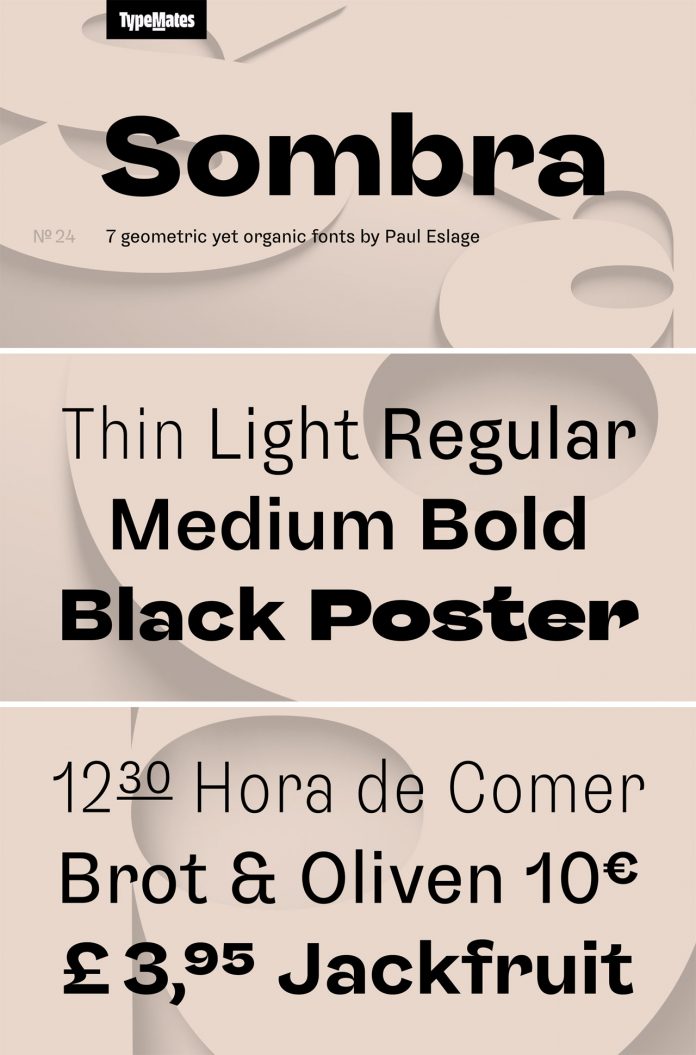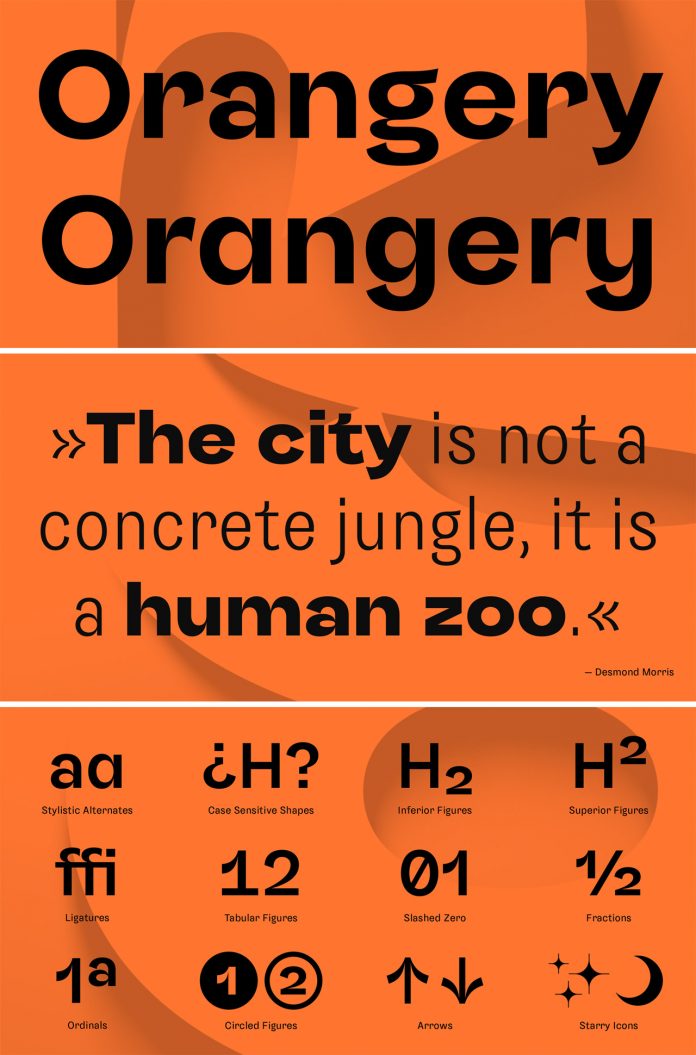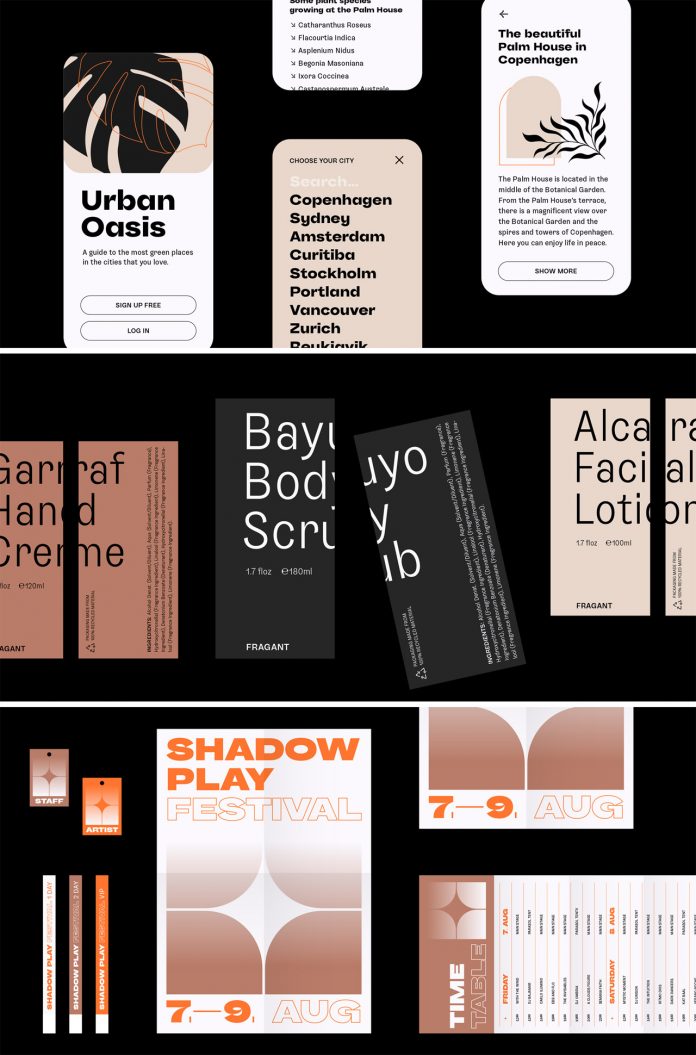
Let’s introduce you to the Sombra font family, an organic grotesque typeface with a flourishing touch.
Designed by Paul Eslage and published just recently by foundry TypeMates in 2020, Sombra is an organic sans serif font family with a flourishing dynamic style. It combines a basic geometric structure with organic, sharply swelling strokes and extreme incisions. The tension between this organic dynamic design and the geometric construction makes it a distinctive font for various projects including branding, editorial, and packaging design in numerous areas such as nature, urban, art, or culture.
Equipped with seven weights and 680 glyphs per style, the Sombra font family supports more than 140 Latin-based languages. Furthermore, it is packed with lots of typographic features including arrows, starry icons, circled numbers, compact figure settings, alternates, and eye-catching ligatures. The entire family is currently available as an introductory offer (50% off)—only for a very limited time! To learn more, just click on one of the following links.